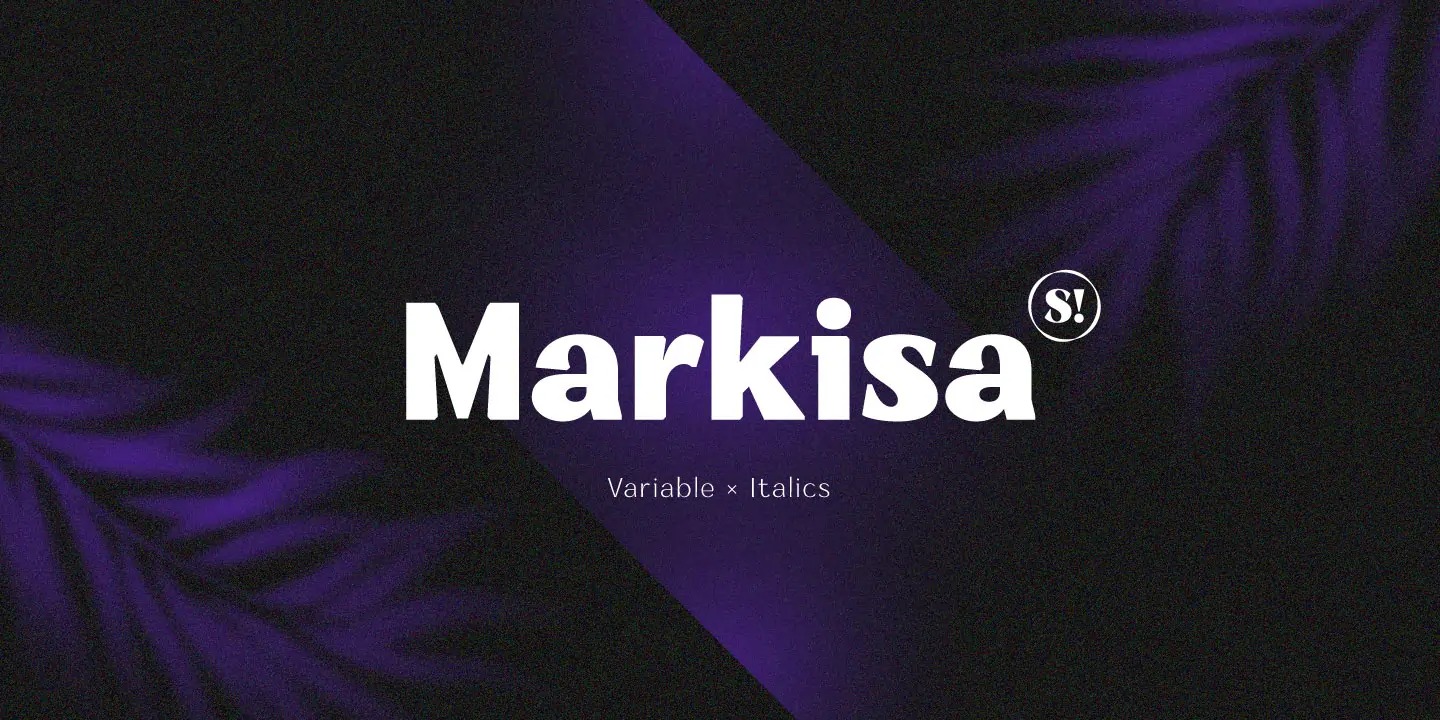
Markisa Font
Markisa Sans Serif Font
It’s a modern sans serif font family with modern look and elegant minimalistic style. It consists of eighteen weights from Thin to Black in both Upright and Italic styles. The resilient yet robust typeface. A san-serif with a humanist touch, a steady combination of seriousness and merriment. Works well as texture in small sizes, while at the same time claiming its space on the display. With its distinctive characteristic, can catch anyone’s attention wherever and whenever.